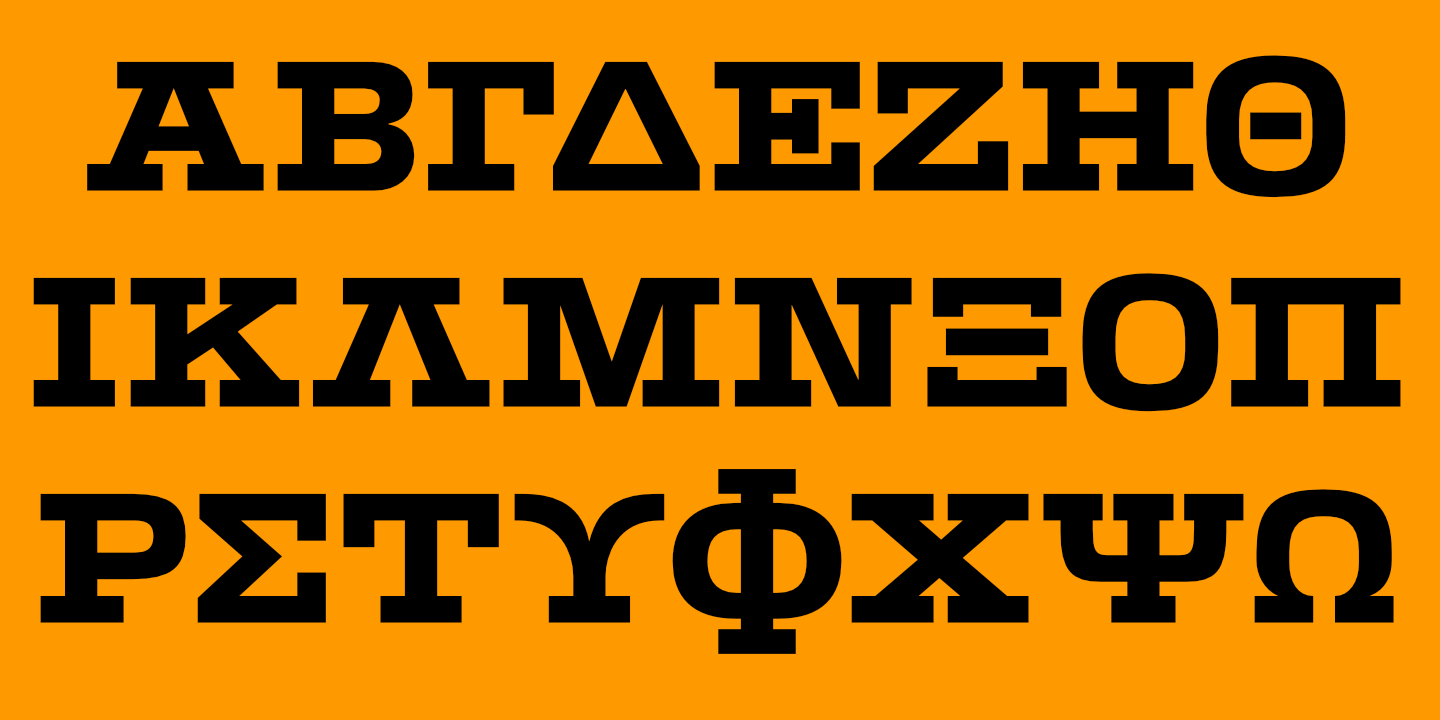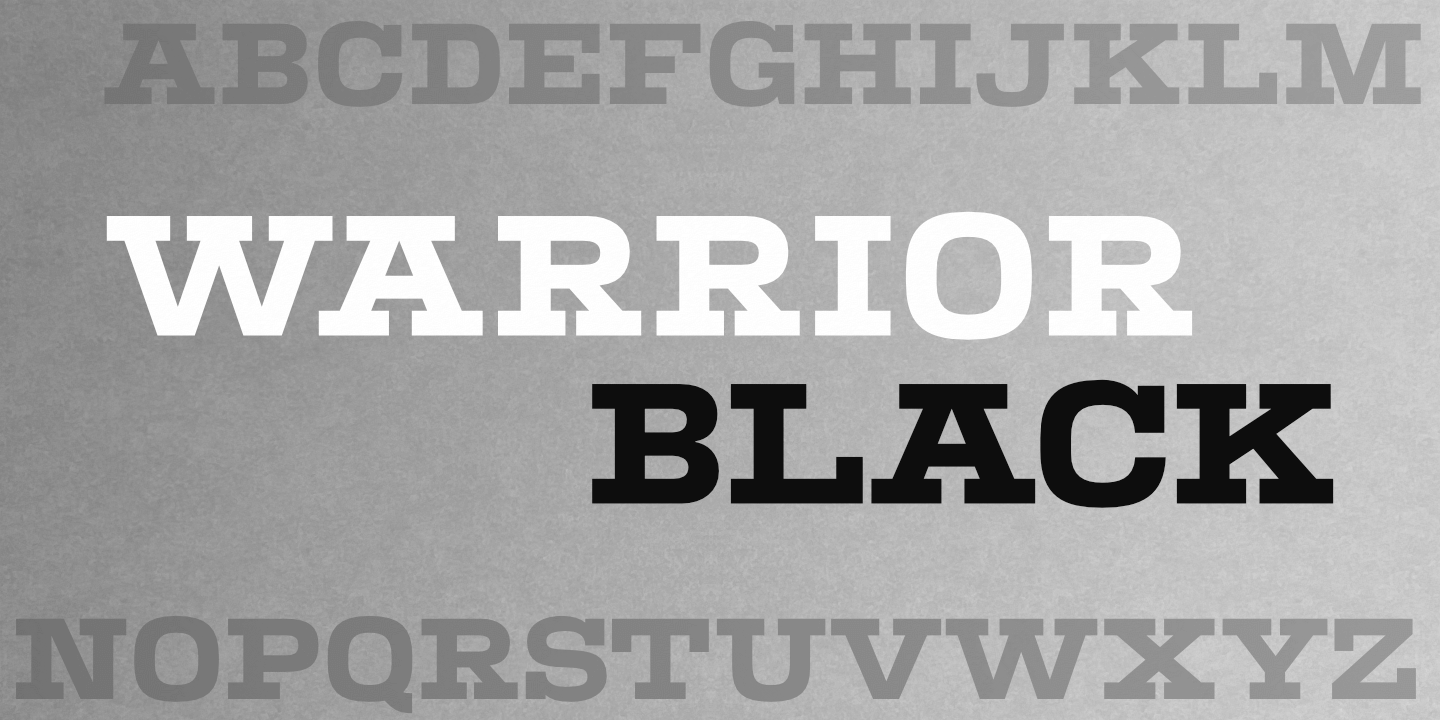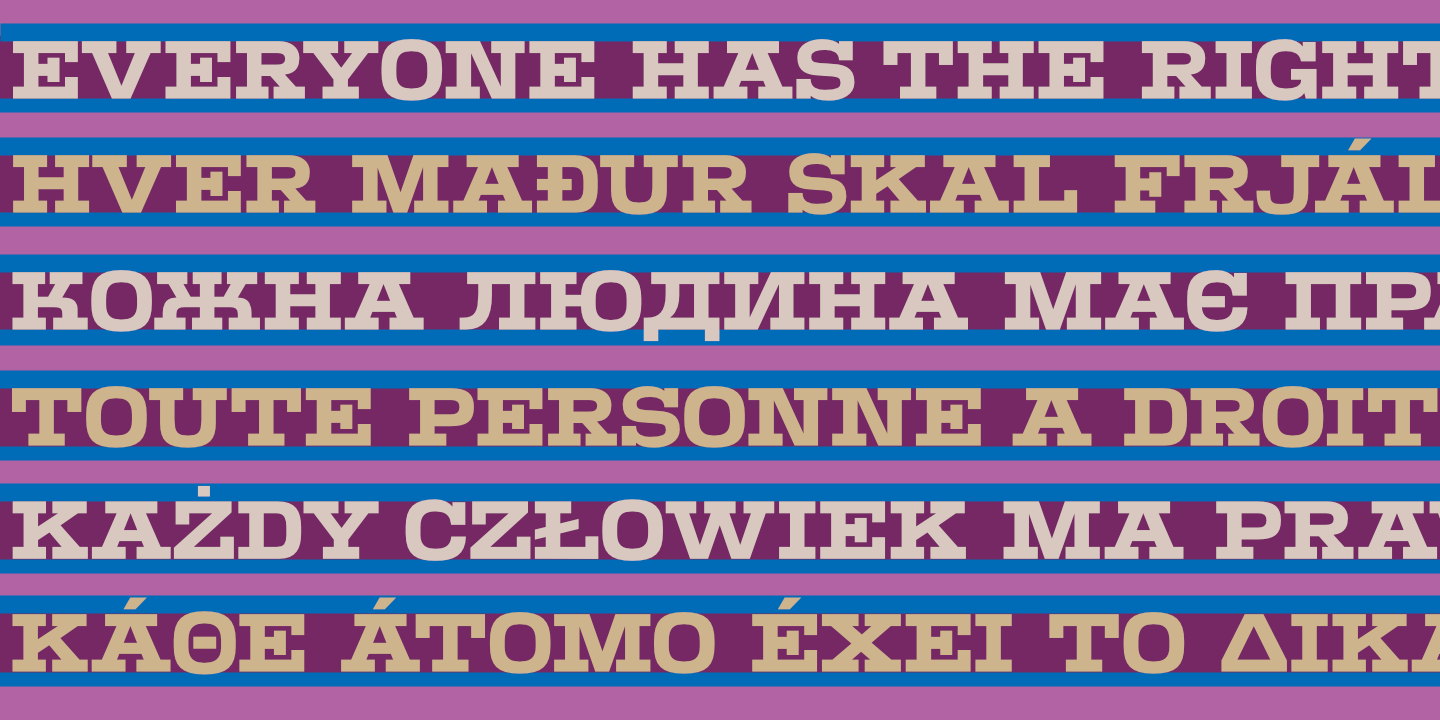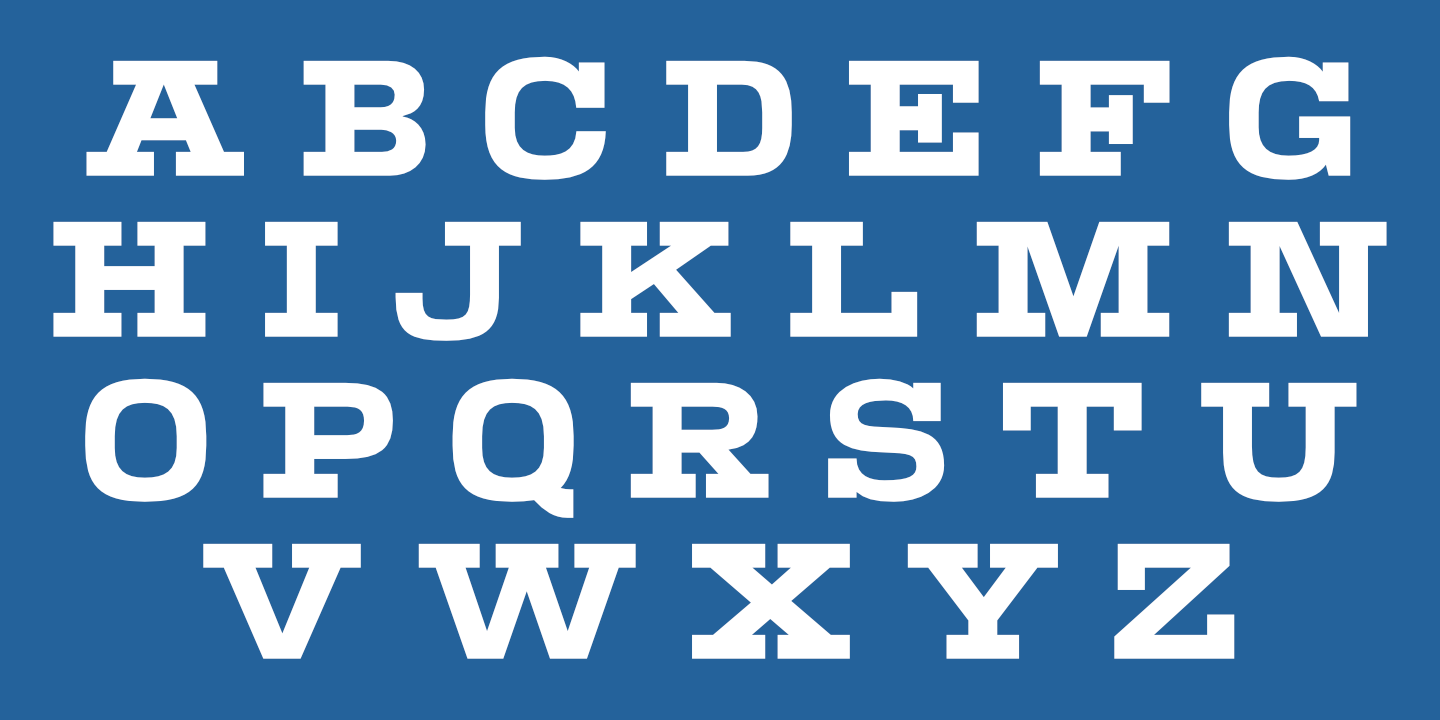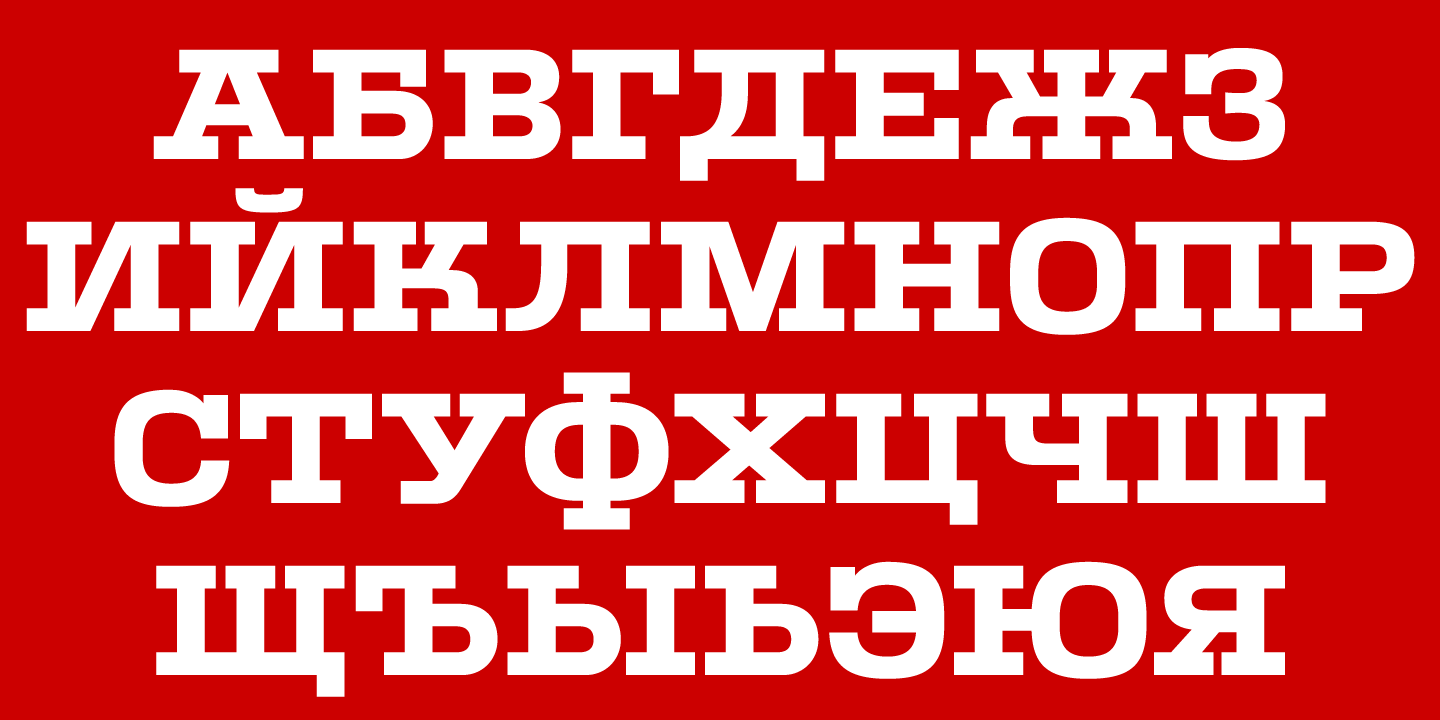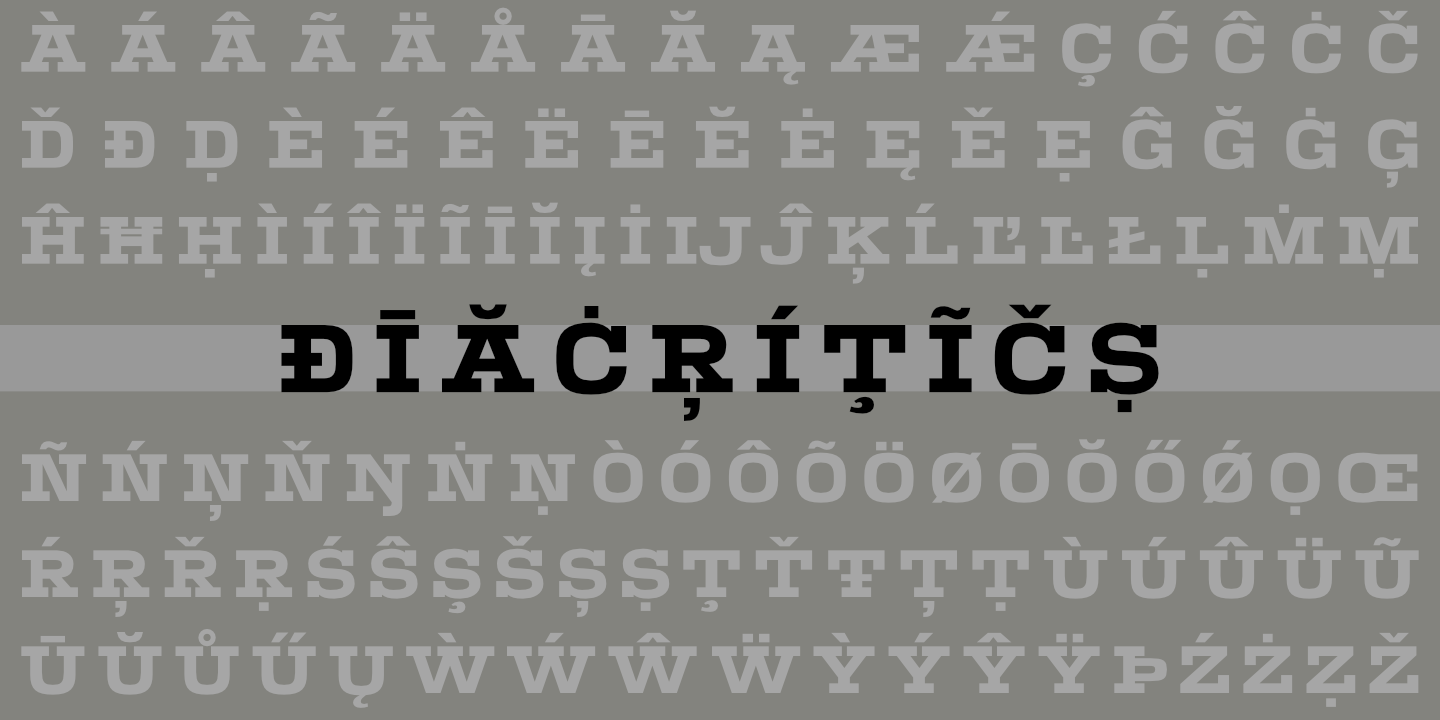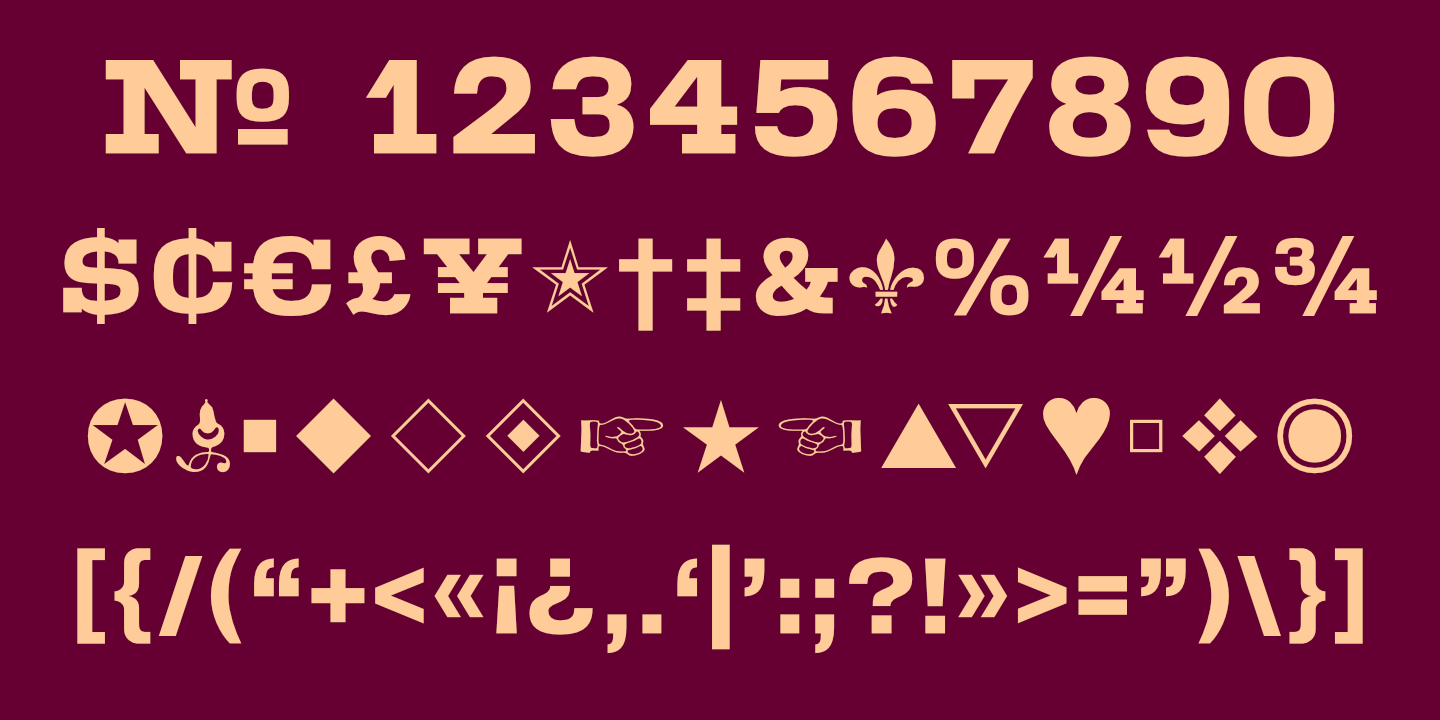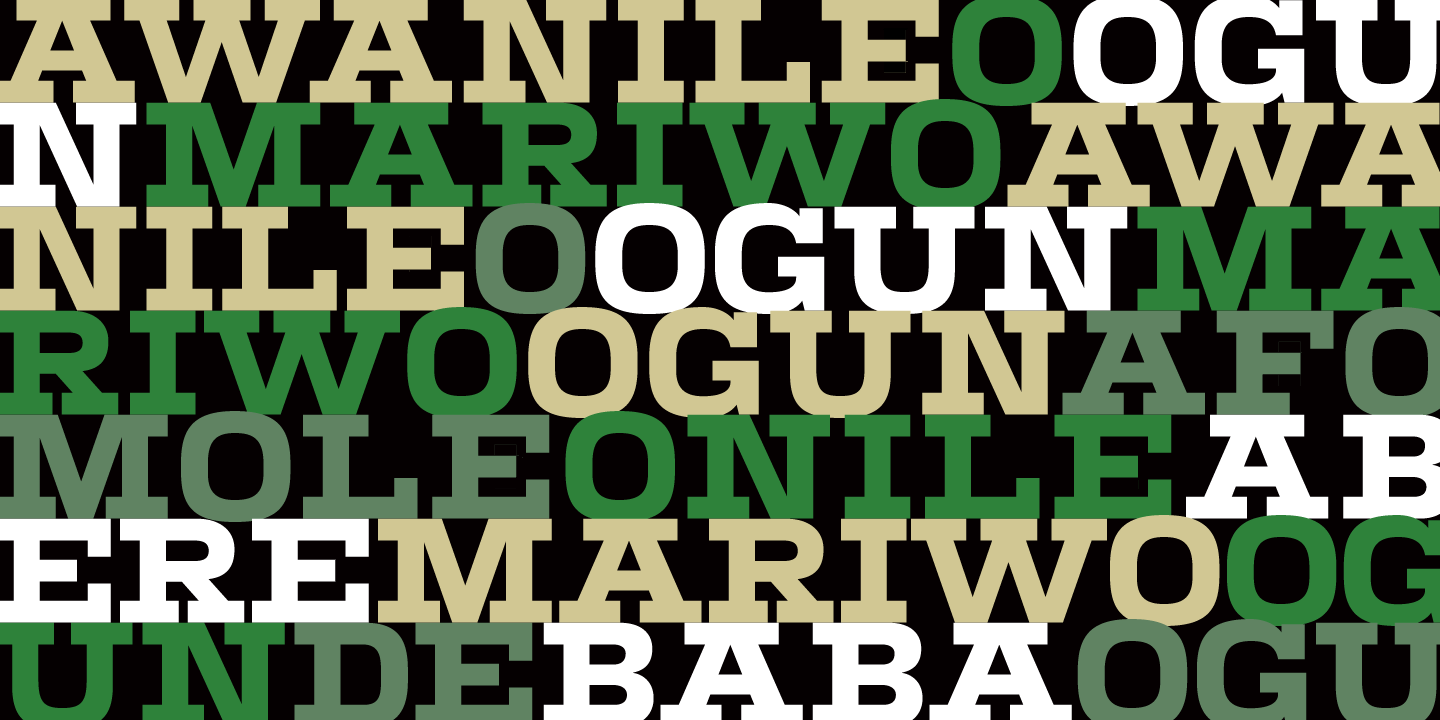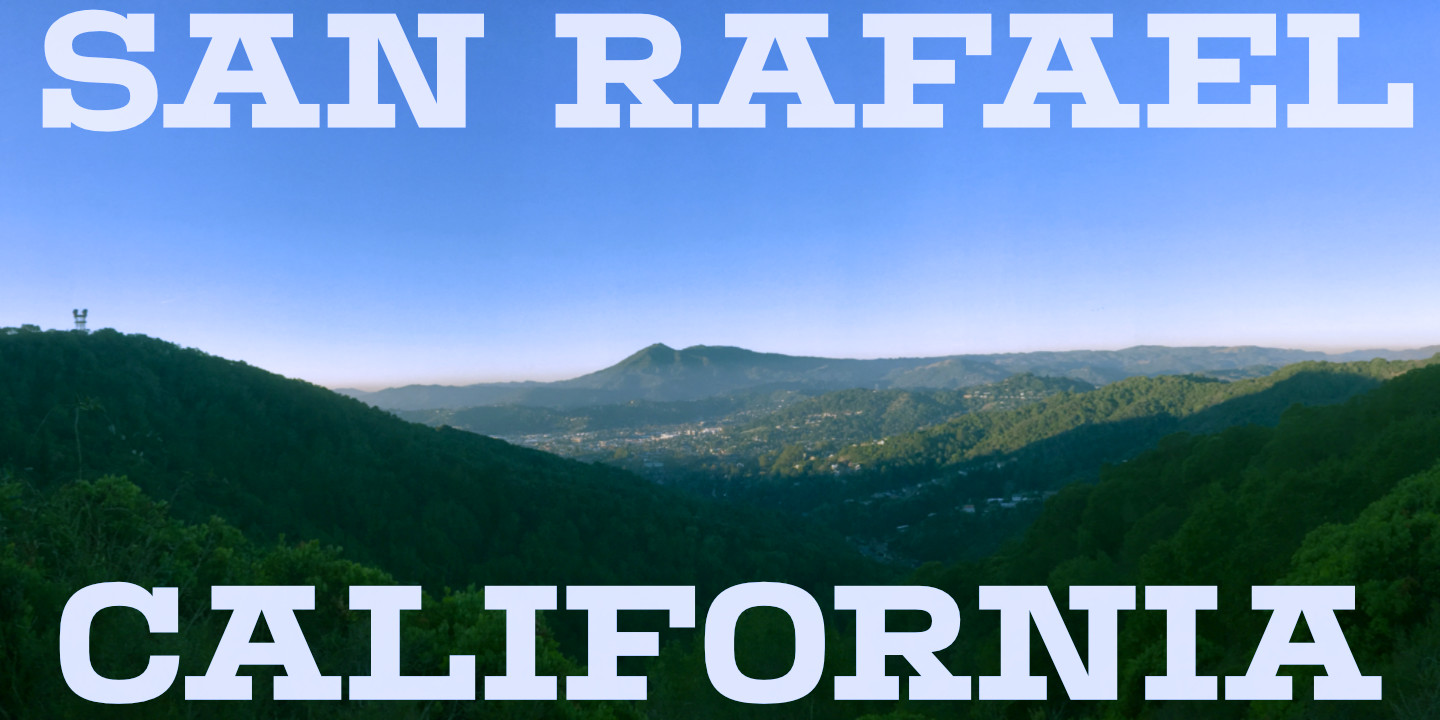
Basic Latin alphabet blank
Warrior Black: Basic Latin alphabet. See Glyphs for details.
Basic Cyrillic alphabet
Warrior Black supports most languages that use the Cyrillic alphabet. See Glyphs for details.
Basic Greek alphabet
Warrior Black supports modern (monotonic) Greek. See Glyphs for details.
Numerals, Punctuation
UDHR
Warrior Black supports most European languages.
Stacked Text
Notice that light text on a dark background appears slightly heavier than dark text on a light background. blank
Diacritics
Warrior is available in seven weights and three decorative styles.
Ogun
San Rafael